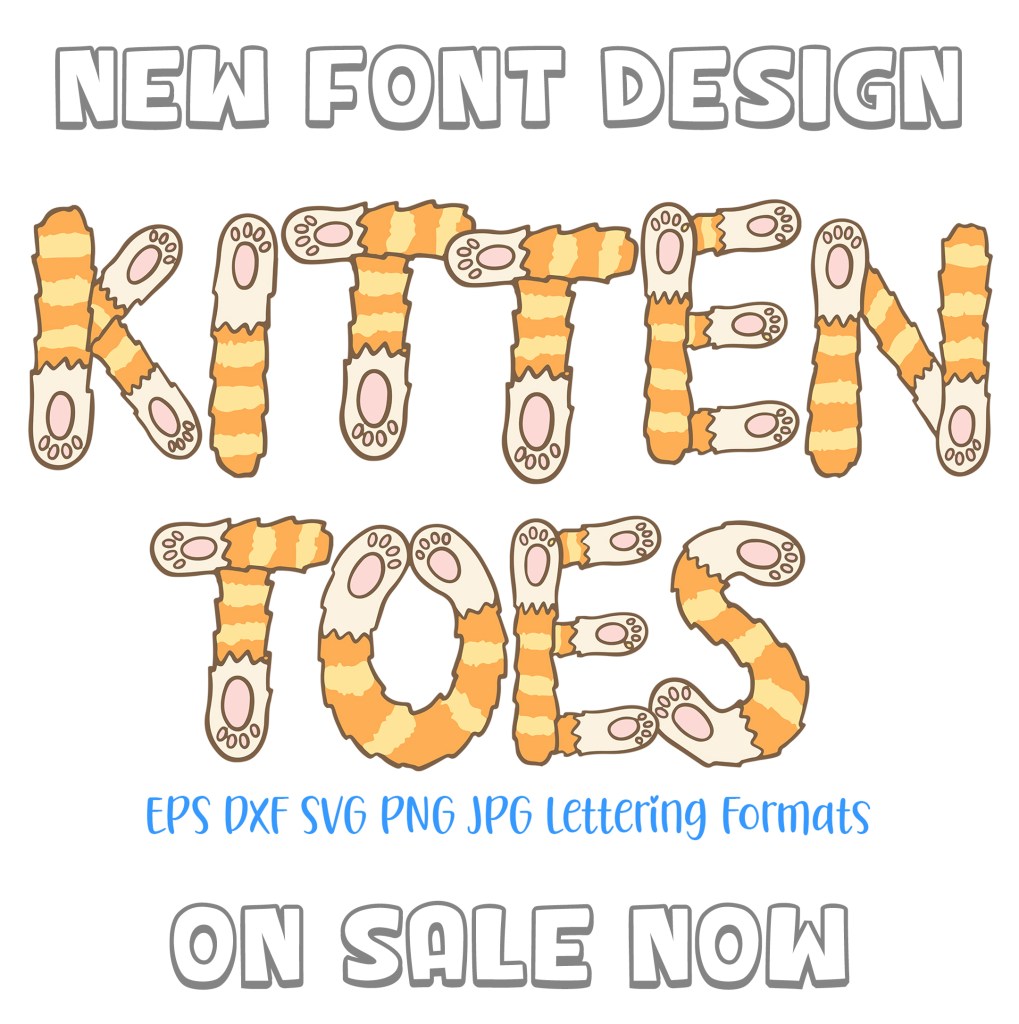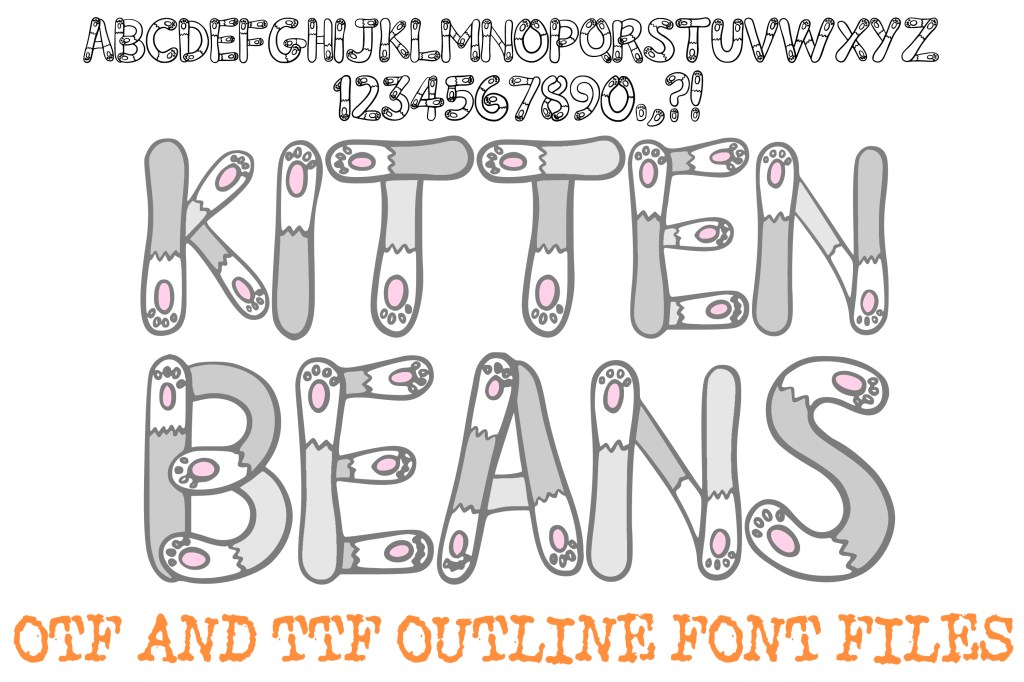
Kitten Toe Beans Letter Font
Well, guess who has two kittens in her house now… Me. Brian and Marsha (bonus points if you know where that’s from). I’ve been watching them for a week now, getting into chaos after chaos and it made me think about their toe beans. And now we all have a bean inspired lettering font to play with. YAY!